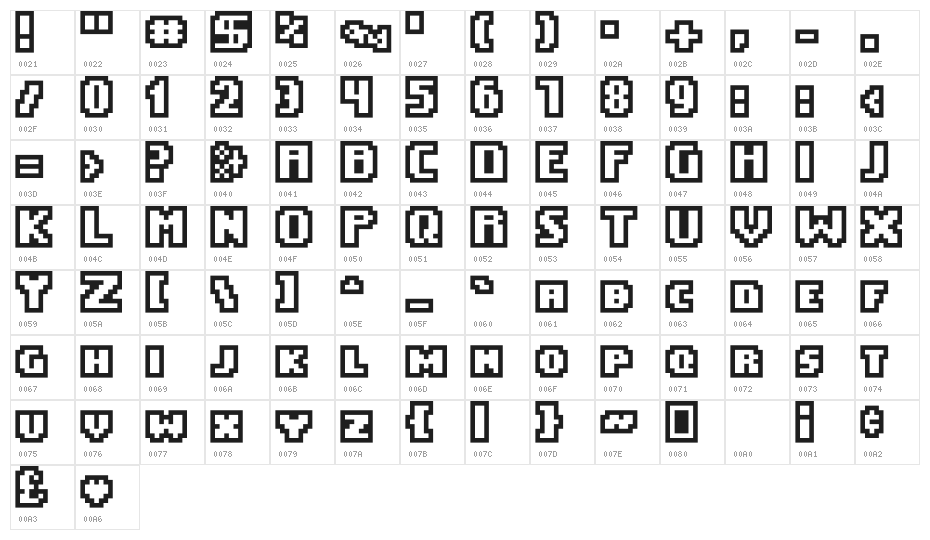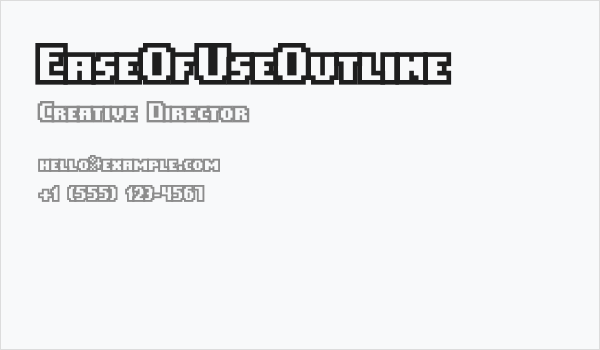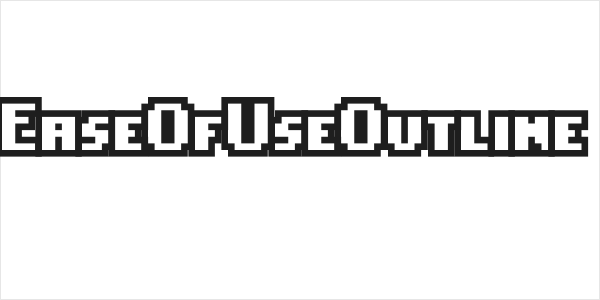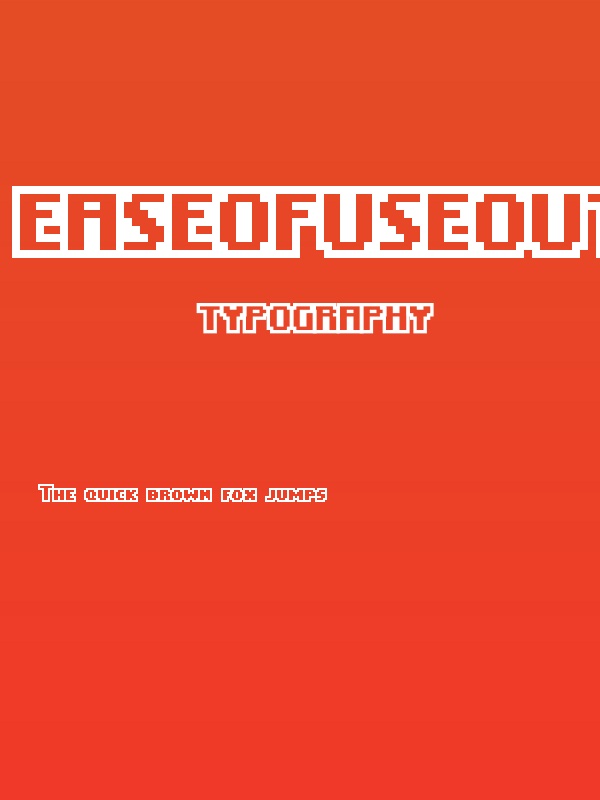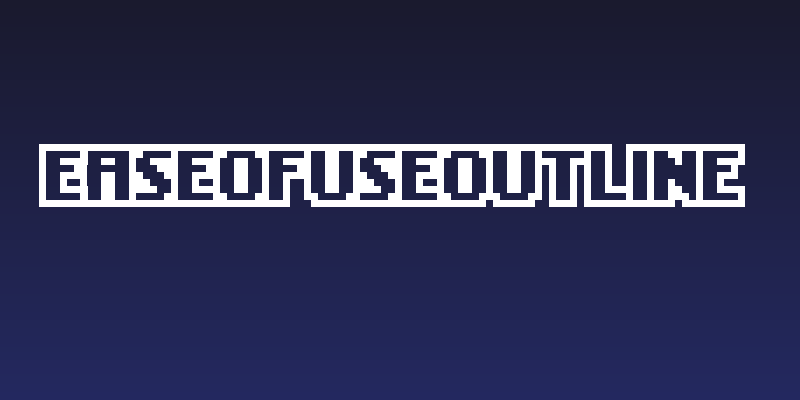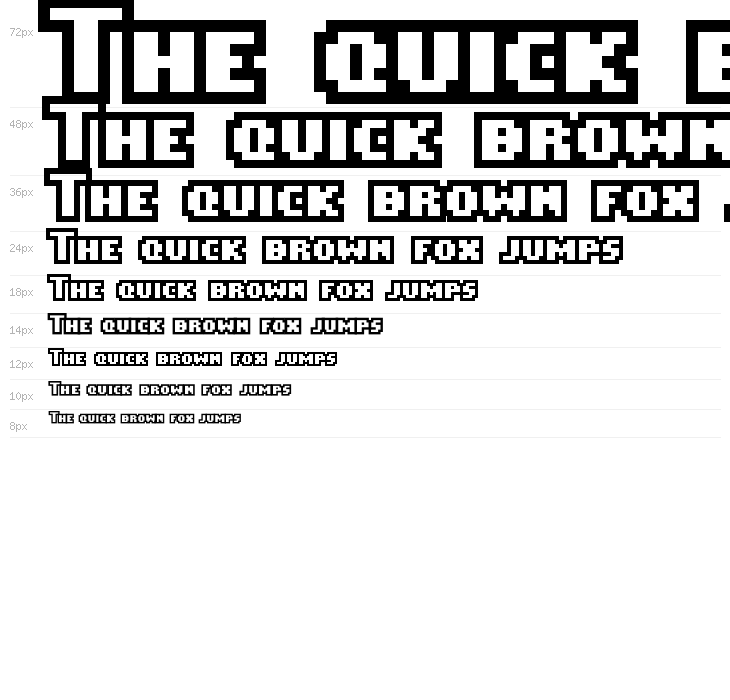
EaseOfUseOutline Font
EaseOfUseOutline Description
This font features a bold, pixelated style reminiscent of retro video games and digital displays. Each character is outlined, giving it a distinct, blocky appearance that enhances readability and adds a nostalgic charm. The uppercase and lowercase letters maintain a consistent height, while the numbers and special characters follow the same geometric pattern. The font's design is simple yet striking, making it ideal for projects that require a vintage or tech-inspired aesthetic. Its uniformity and clarity make it suitable for both digital and print media.
Overall StyleVintage
Proposed ProjectsIdeal for video game graphics, tech-themed posters, retro websites, and digital art projects.